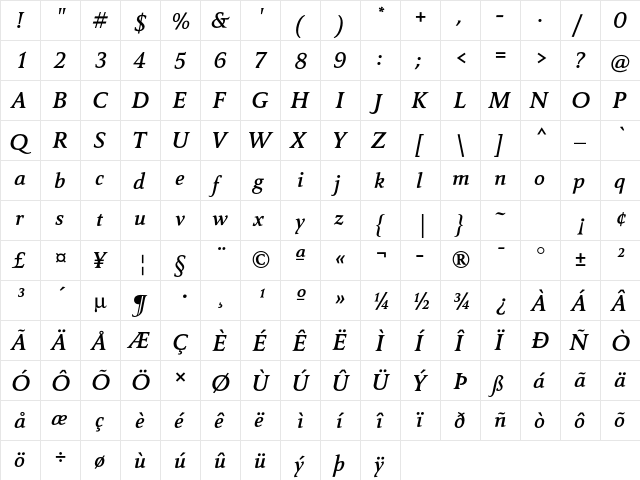
Carre Noir Std Demi Italic Font Preview
Carre Noir Std Demi Italic
Carre Noir Std Demi Italic Font Details
Design Context for Carre Noir Std Typeface
Carre Noir Std offers clean, dependable letterforms without strong stylistic allegiance, making it a practical choice for designers who need flexibility. Its italic angle brings a sense of urgency and motion to the letterforms.
Pro Tip: Use Carre Noir Std for emphasis, pull quotes, and subheadings where its slanted energy can add rhythm to the layout.